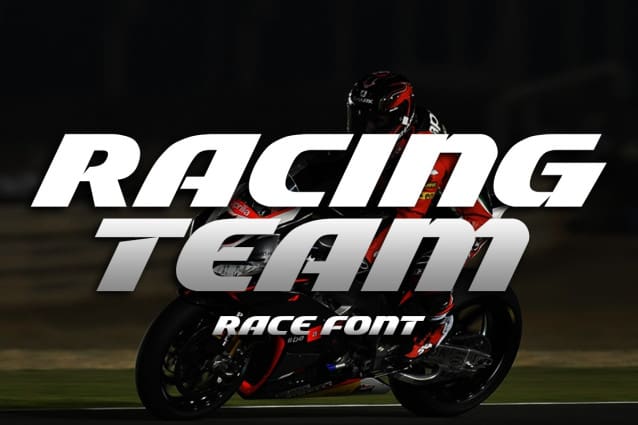
Racing Team Font
Racing Team Font, is an Energetic Racing Font. The font is ready to be used for your racing sports or automotive-related projects. Built to be perfect for headlines, jerseys, logos, branding, posters, packaging, advertising, and much more.